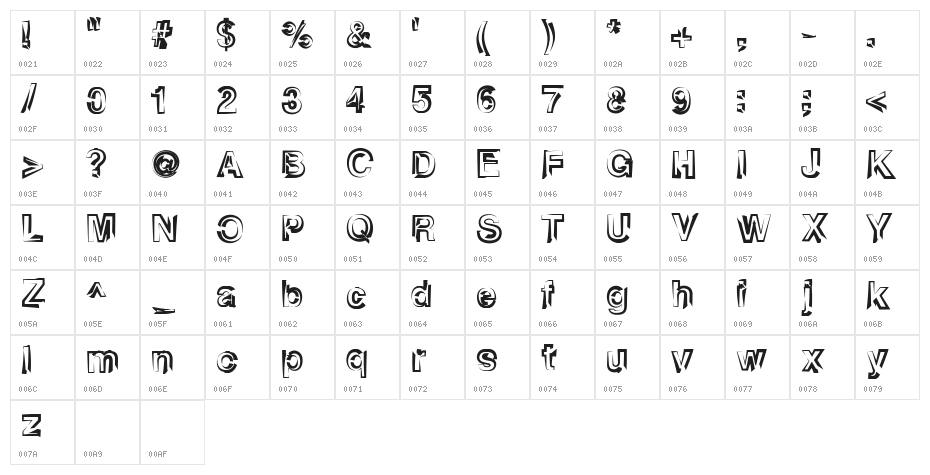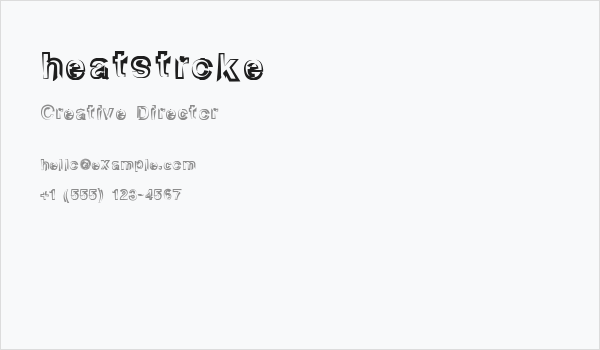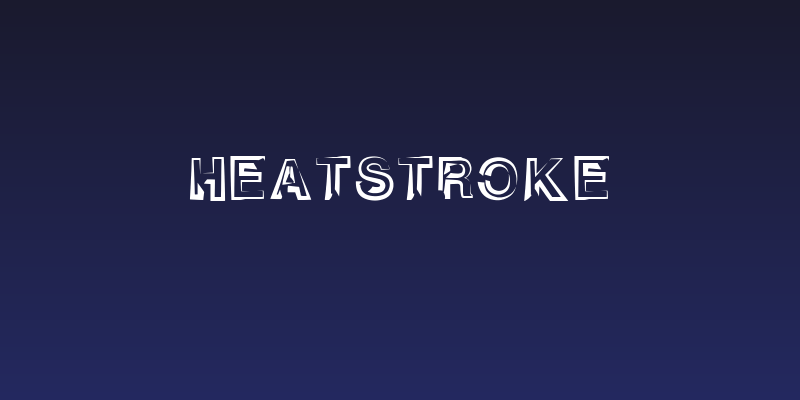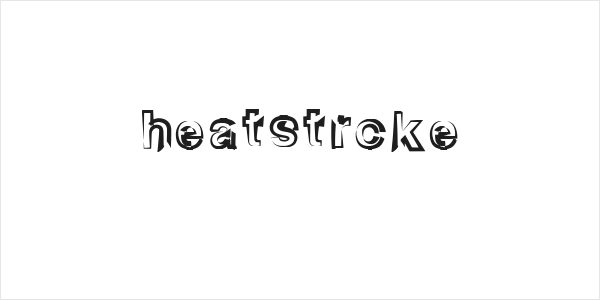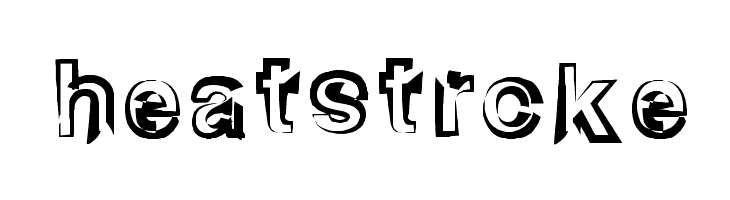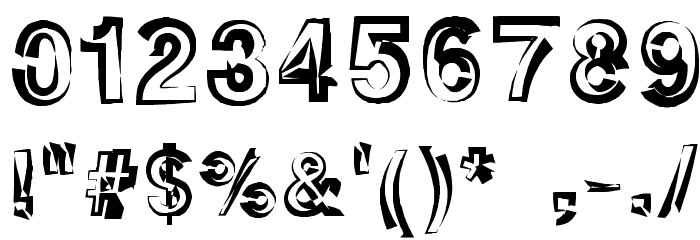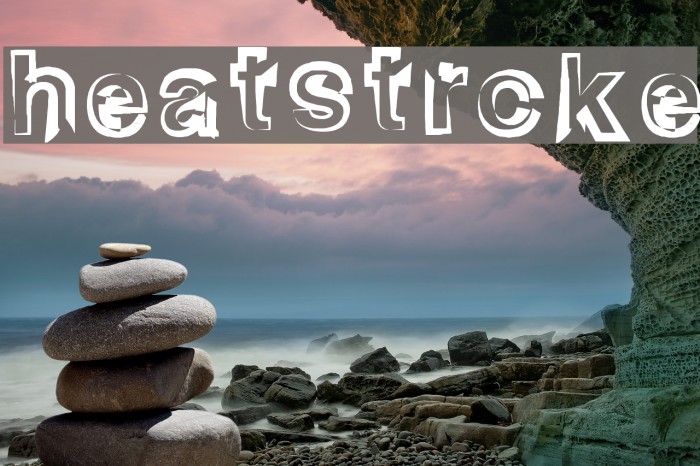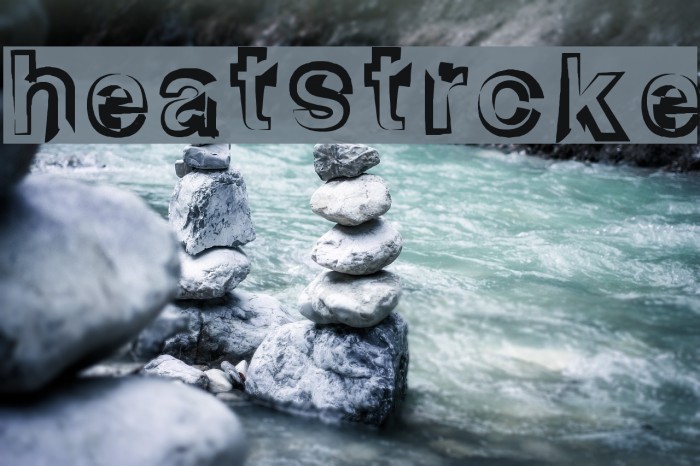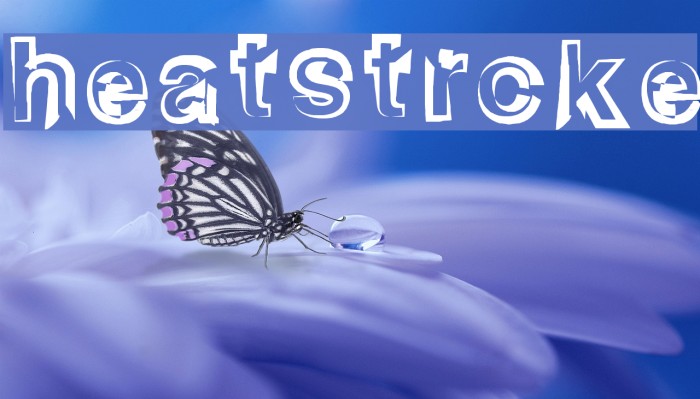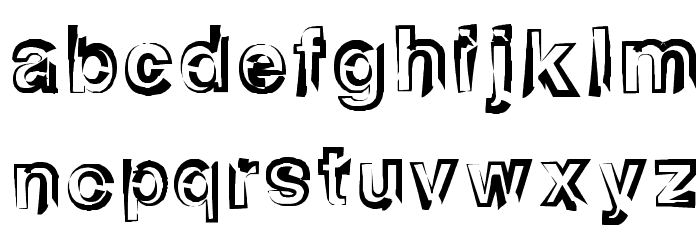
heatstroke Font
heatstroke Description
This font features a bold and dynamic style with a three-dimensional effect that creates a sense of movement and depth. The letters are characterized by a strong, shadowed outline that gives them a striking appearance. The uppercase and lowercase letters maintain a consistent design, with sharp angles and clean lines that enhance their visual impact. The numerals and special characters follow the same design principles, ensuring uniformity across all elements. This font's unique style makes it stand out, making it ideal for projects that require a bold and eye-catching typeface.